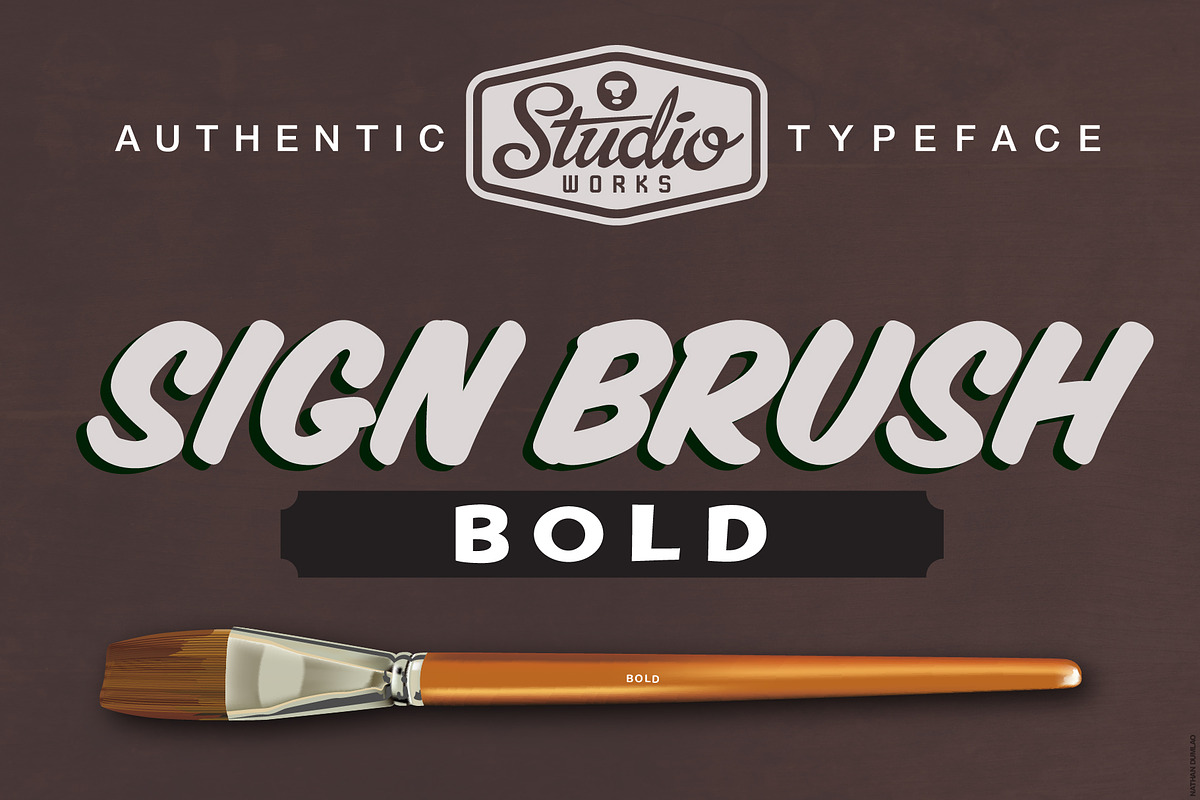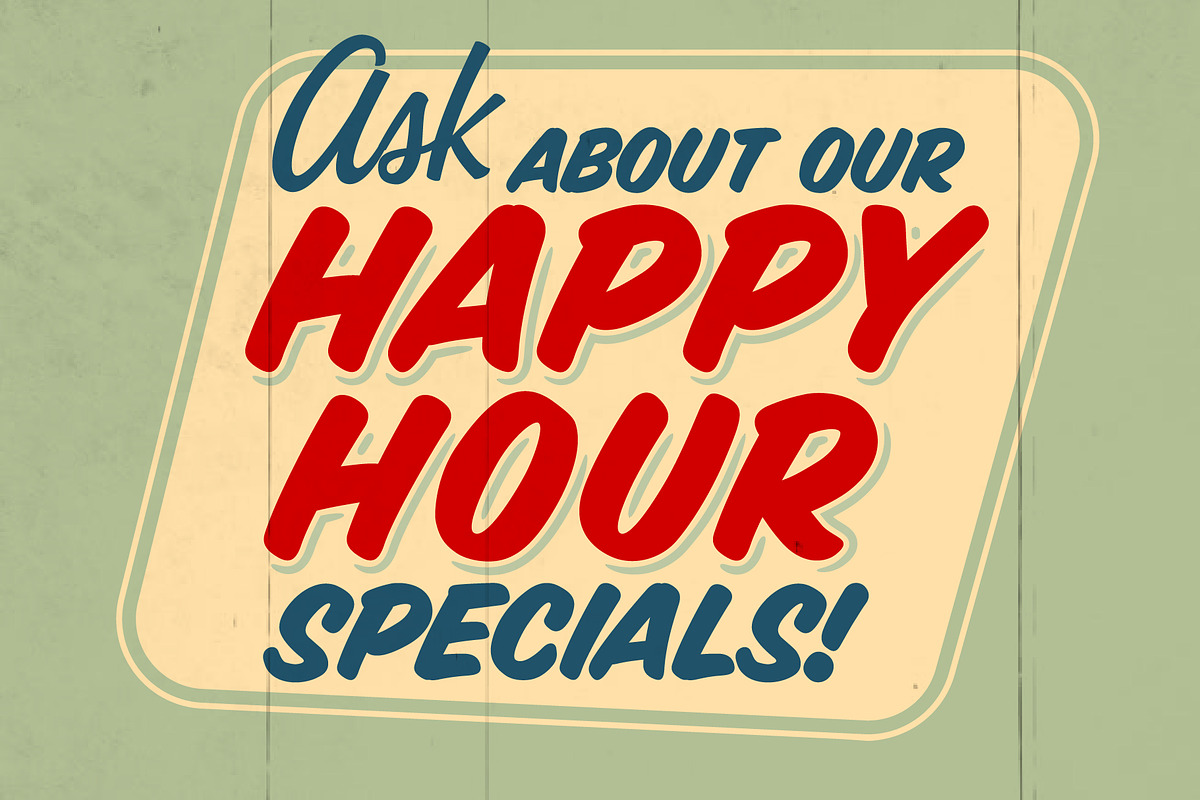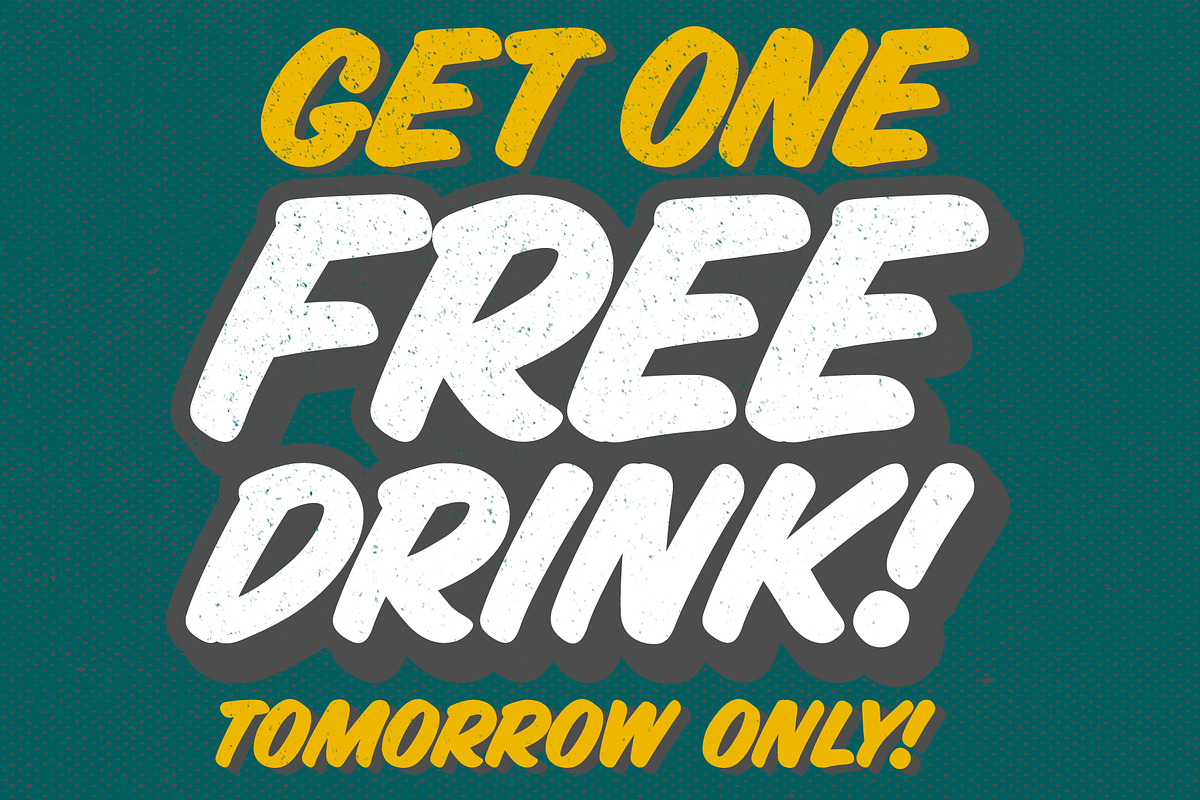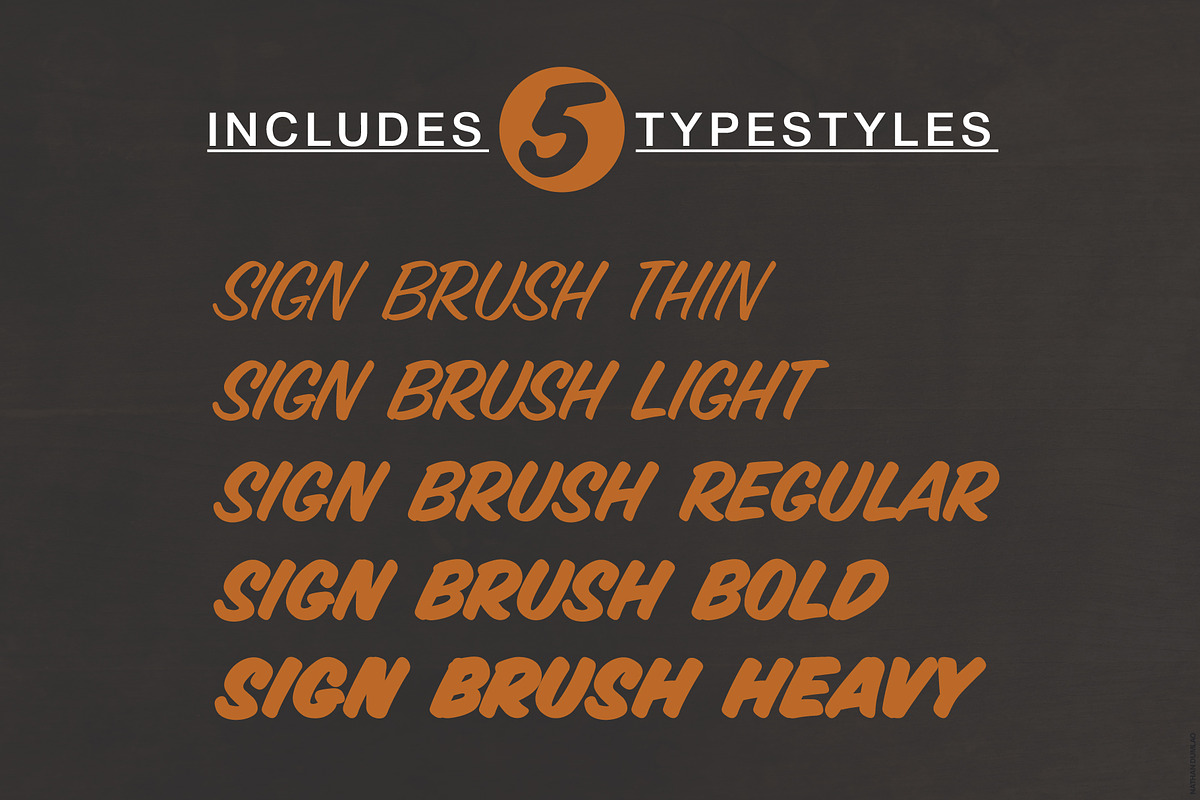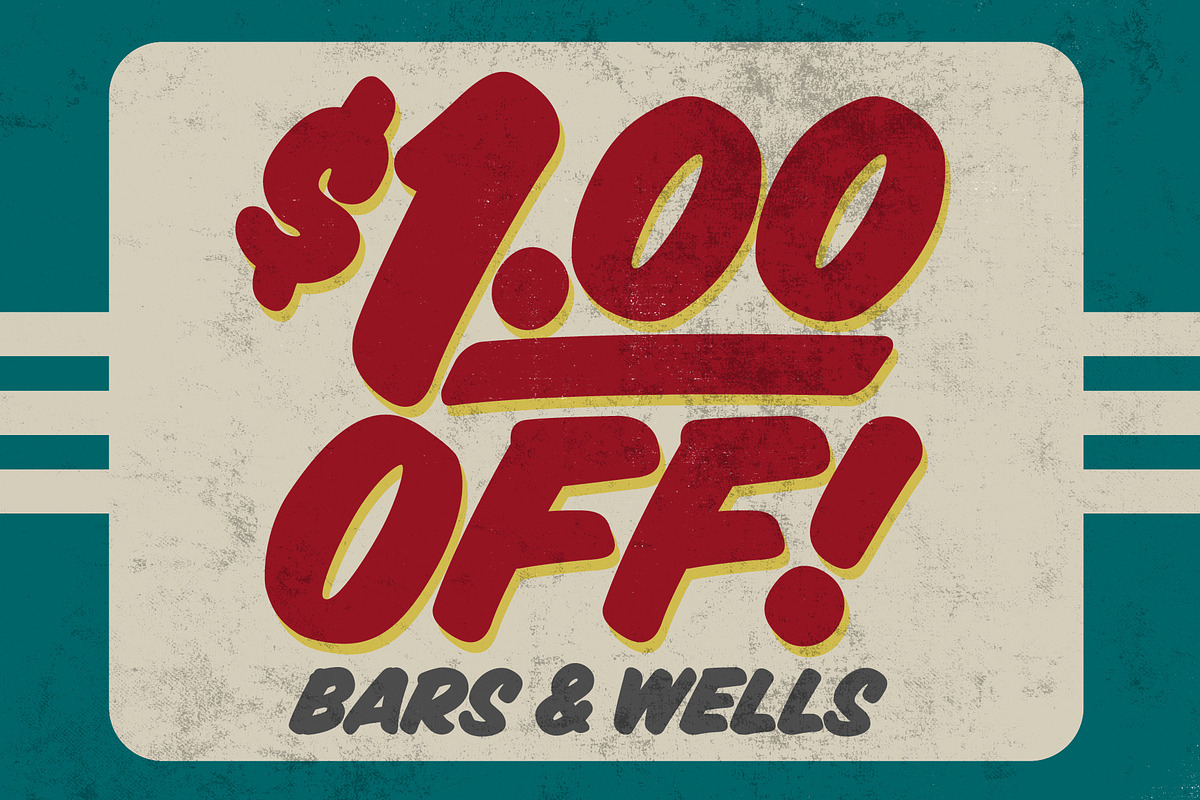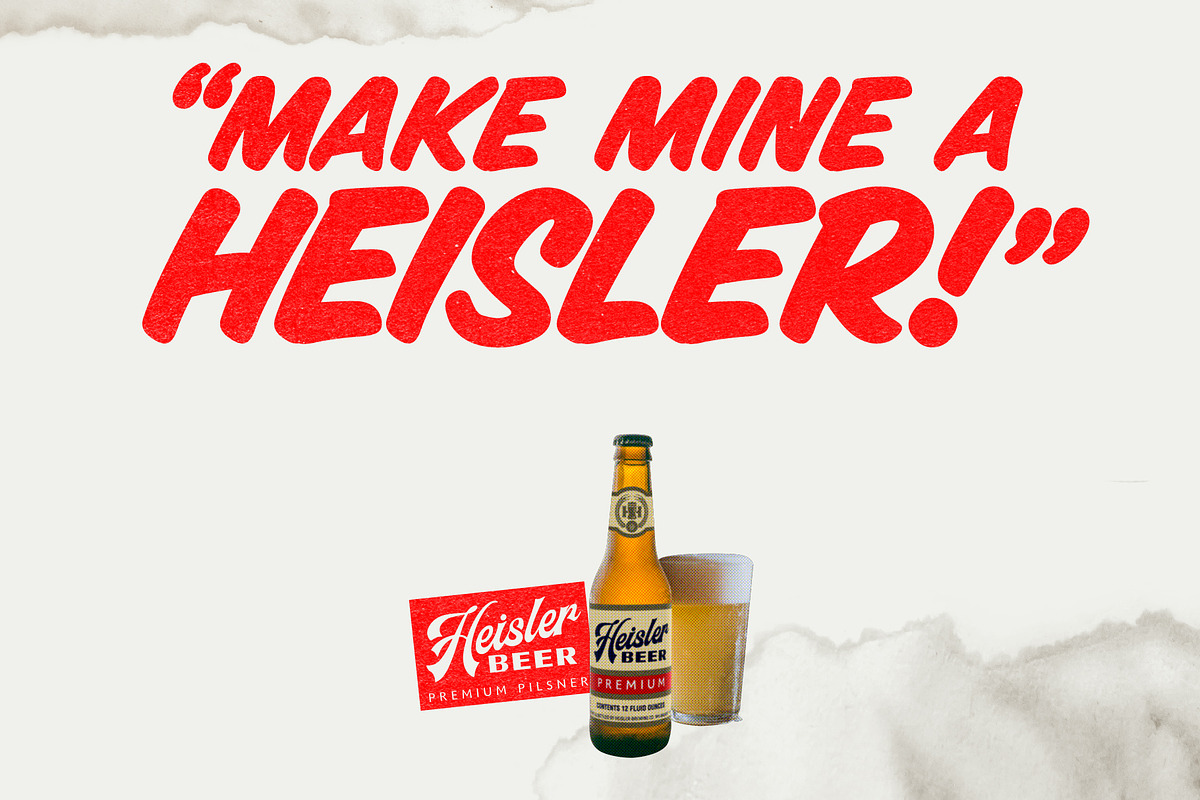
Sign Brush Bold | Display Type
StudioWorks announces •• S I G N • B R U S H • B O L D •• — a sturdy, one-stroke, casual display typeface!
Sign Brush Bold based on the distinctive, brush lettering of creative sign makers. Typical of the lettering style created with a thicker brush, Sign Brush Bold features heavier strokes with tapered stress. Sign Brush Bold delivers the eye-catching style of hand-painted lettering to accent your logos, headlines, posters and signage with vintage allure.
Sign Brush Bold includes:
- Single Case (capital) A-Z characters
- Numbers (0-9)
- Standard punctuation and glyphs
Use Sign Brush Bold on all your creations to build strong, impactful, brush lettering like magic!